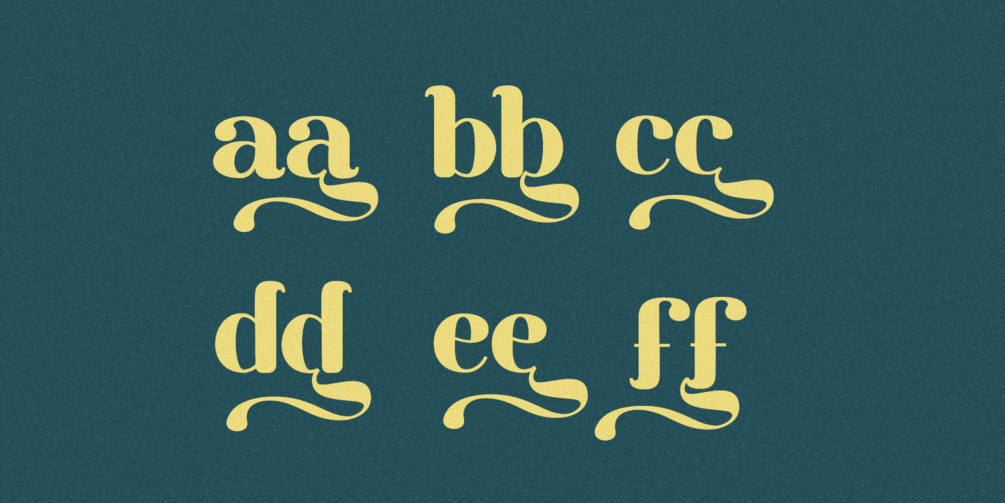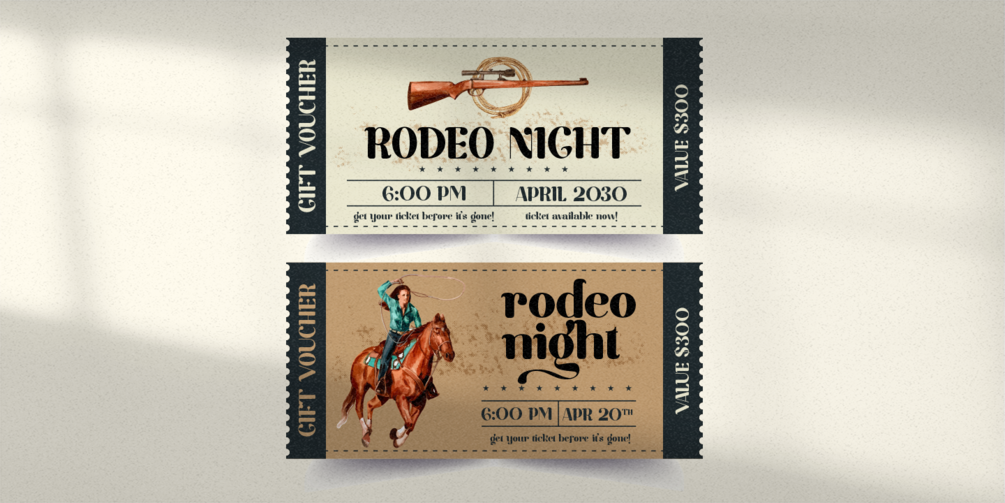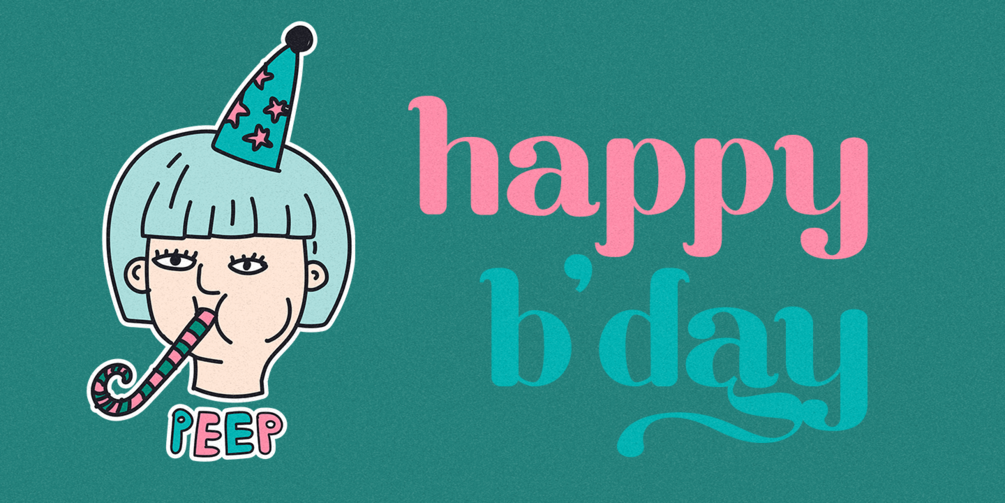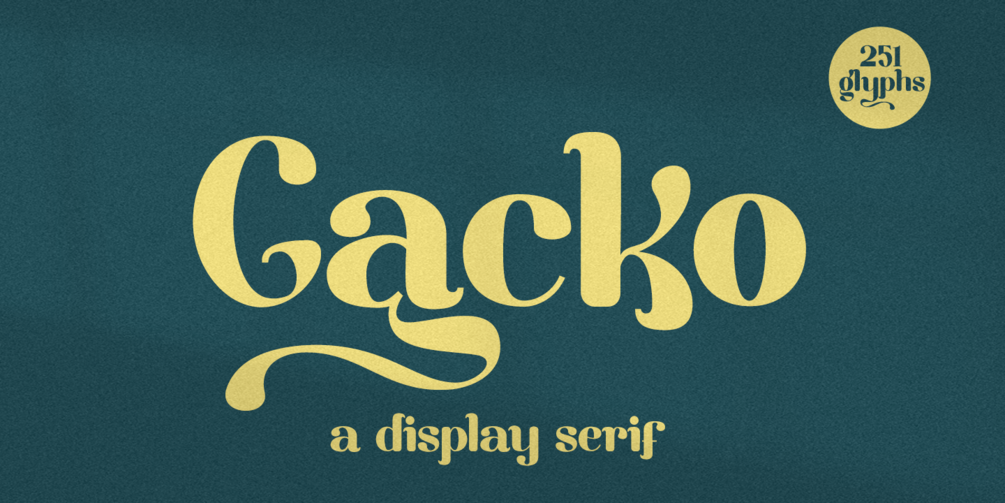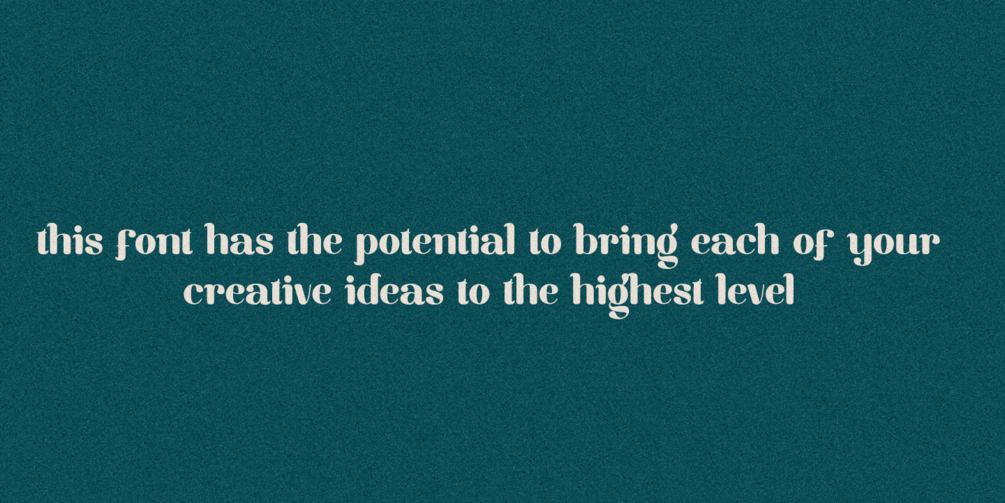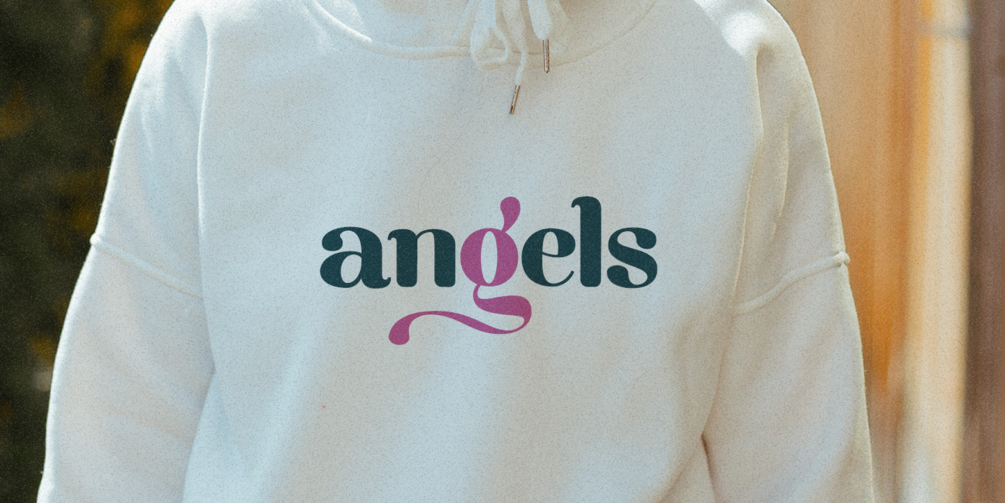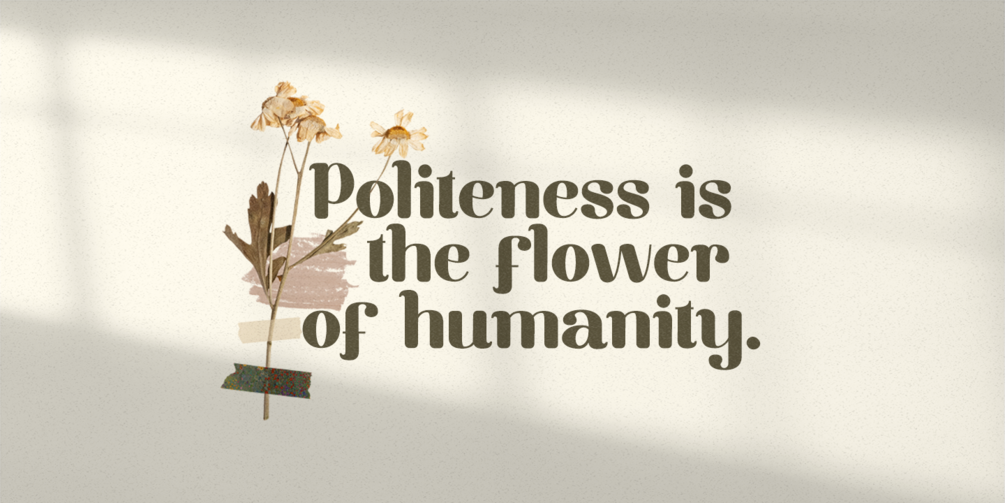
Gacko - a Groovy Font
Unleash the timeless beauty of Gacko Font, a stunning display serif typeface with captivating alternative ligatures. This versatile font offers the perfect blend of elegance, modernity, and retro charm to your designs. Whether you're creating sophisticated branding materials, breathtaking invitations, or stylish posters with a vintage twist, Gacko Font is the ideal choice. Impress your audience with its striking and intricate details, and elevate your designs to the next level with the stunning Gacko Font.